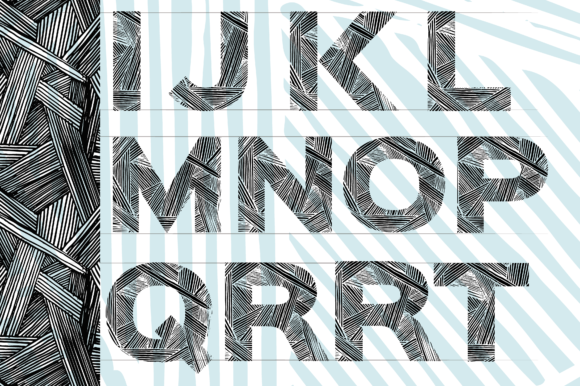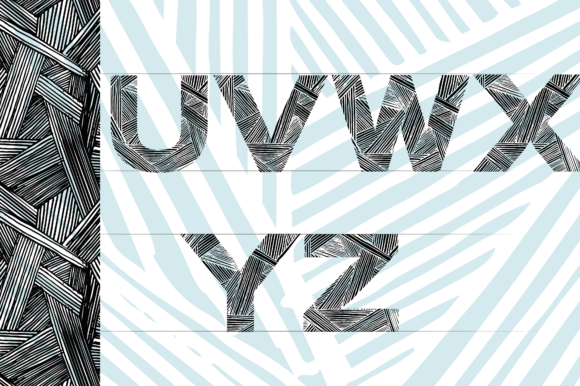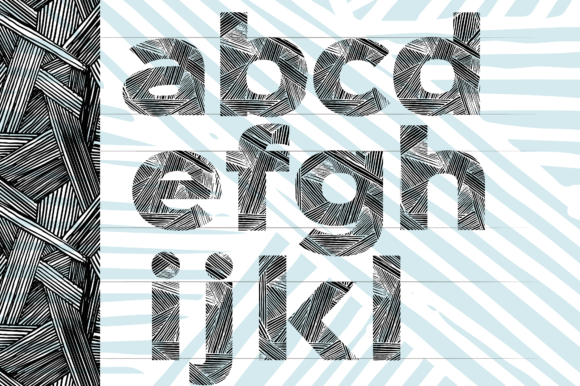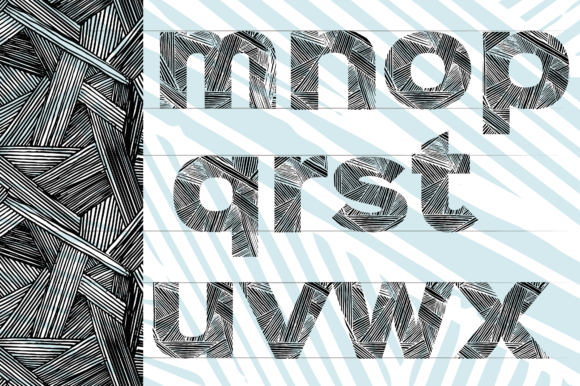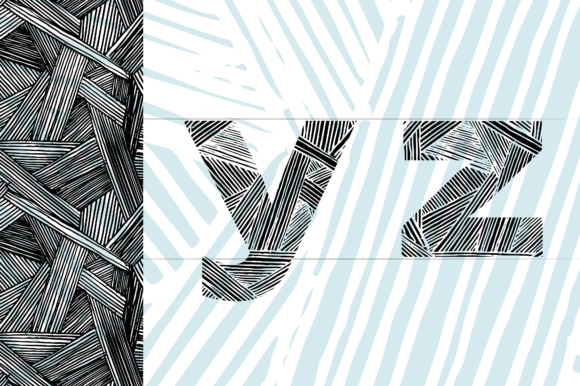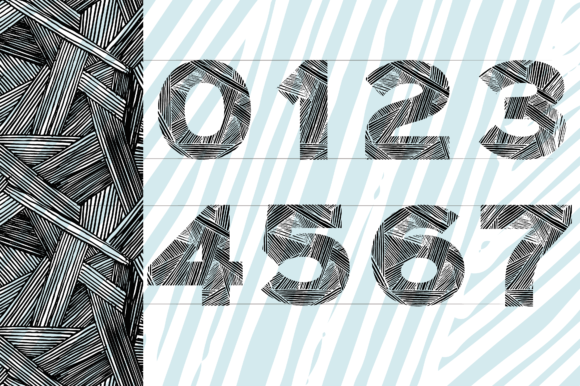
Introducing Hand Drawn Ink Lines Font: Elevate Your Designs with Unique Flair
Are you tired of using the same old fonts in your designs? Do you want to add a touch of personality and whimsy to your posters, headlines, and titles? Look no further than the Hand Drawn Ink Lines Font. This beautifully crafted decorative font is designed to inspire creativity and bring a fresh perspective to your work.
What is Hand Drawn Ink Lines Font?
Hand Drawn Ink Lines is a uniquely designed and highly detailed decorative font that is perfect for designers and crafters looking to add a personal touch to their work. With its intricate ink lines and hand-drawn feel, this font is sure to make your designs stand out from the crowd.
Key Features of Hand Drawn Ink Lines Font
- Unique and Decorative: Hand Drawn Ink Lines Font features intricate ink lines and a hand-drawn feel that adds a touch of personality to your designs.
- Highly Detailed: Each letter and symbol is carefully crafted with attention to detail, ensuring a high level of quality and consistency.
- Versatile: This font works well on a variety of design materials, including posters, headlines, titles, and more.
Hand Drawn Ink Lines Font is perfect for designers and crafters who want to add a personal touch to their work. Whether you’re creating posters, flyers, or social media graphics, this font is sure to elevate your designs and make them stand out.
Use Cases for Hand Drawn Ink Lines Font
- Posters: Use Hand Drawn Ink Lines Font to create eye-catching posters for events, promotions, or advertising campaigns.
- Headlines and Titles: Add a touch of personality to your headlines and titles with this unique and decorative font.
- Social Media Graphics: Use Hand Drawn Ink Lines Font to create engaging social media graphics that stand out from the crowd.
- Branding and Packaging: Use this font to create custom branding and packaging materials that reflect your unique style and personality.
Tips for Using Hand Drawn Ink Lines Font
- Experiment with Colors: Try pairing Hand Drawn Ink Lines Font with different colors and textures to create unique and eye-catching designs.
- Mix and Match: Combine Hand Drawn Ink Lines Font with other fonts and design elements to create visually interesting and dynamic designs.
- Keep it Simple: Don’t be afraid to keep your design simple and clean. Hand Drawn Ink Lines Font can make a big impact even on its own.
Hand Drawn Ink Lines Font is a unique and highly detailed decorative font that is perfect for designers and crafters looking to add a personal touch to their work. With its intricate ink lines and hand-drawn feel, this font is sure to elevate your designs and make them stand out from the crowd. So why wait? Download Hand Drawn Ink Lines Font today and start creating stunning designs that showcase your unique style and personality.